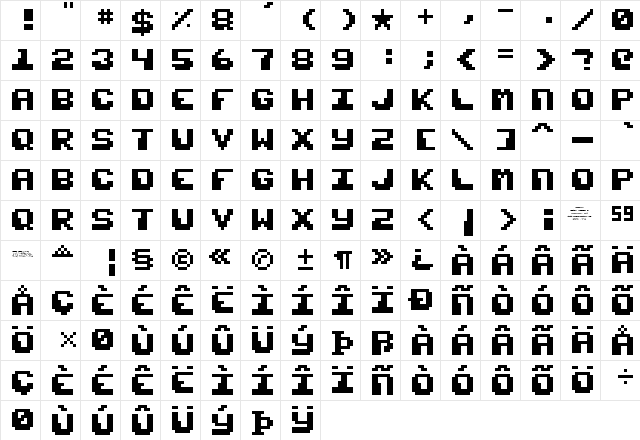
Razor 1911 Mini Regular Font Preview
Razor 1911 Mini Regular
Razor 1911 Mini Regular Font Details
| Foundry | :ck!: |
| Designer | Sector 9 [Rzr] // ck! [freakyfonts] |
Design Context for Razor 1911 Mini Typeface
Razor 1911 Mini is a composed and adaptable typeface that performs quietly and consistently across a wide range of design contexts.